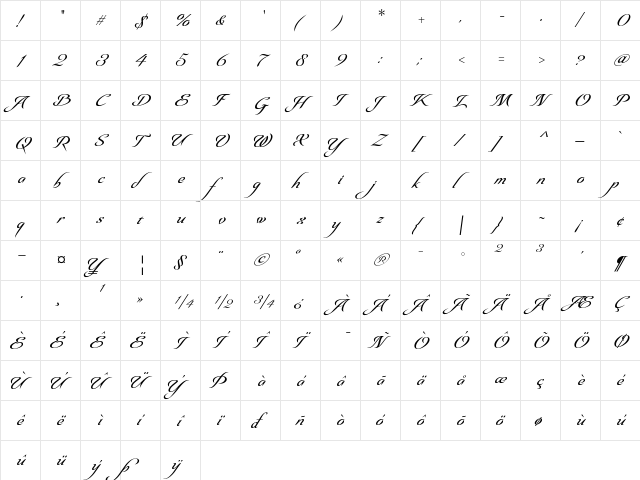
Olidia Two Two
Design Context for Olidia Two Typeface
Olidia Two is a composed and adaptable typeface that performs quietly and consistently across a wide range of design contexts.